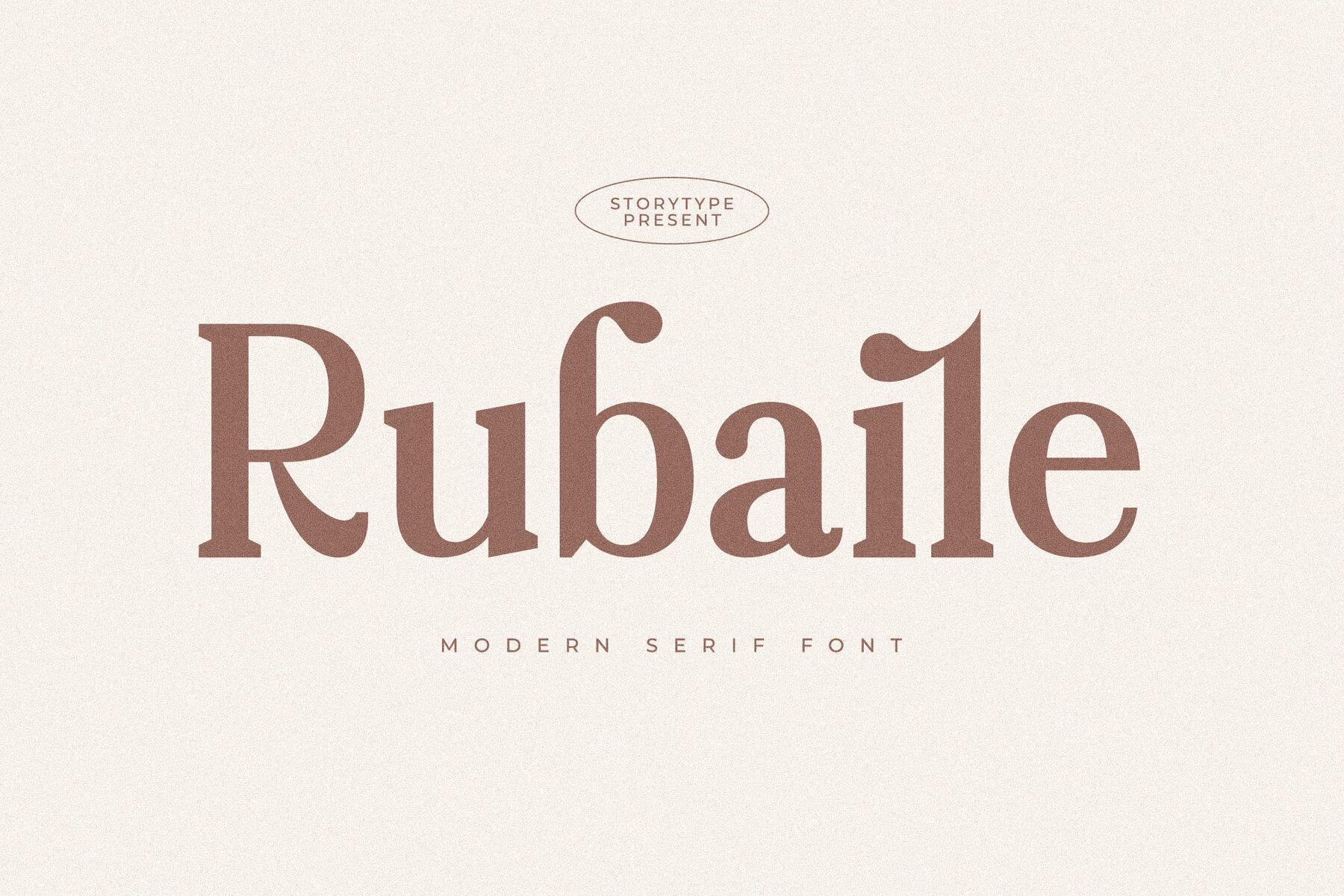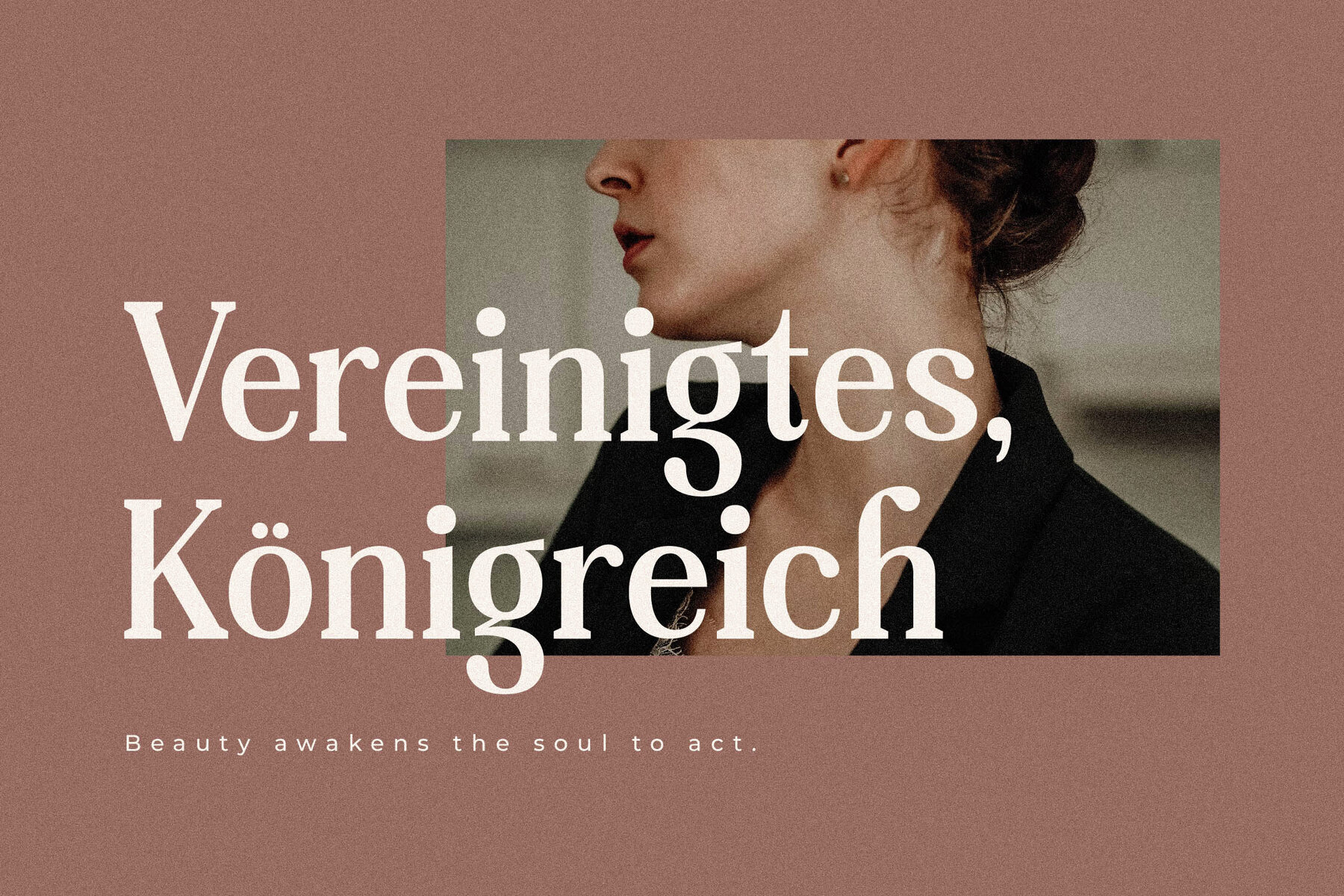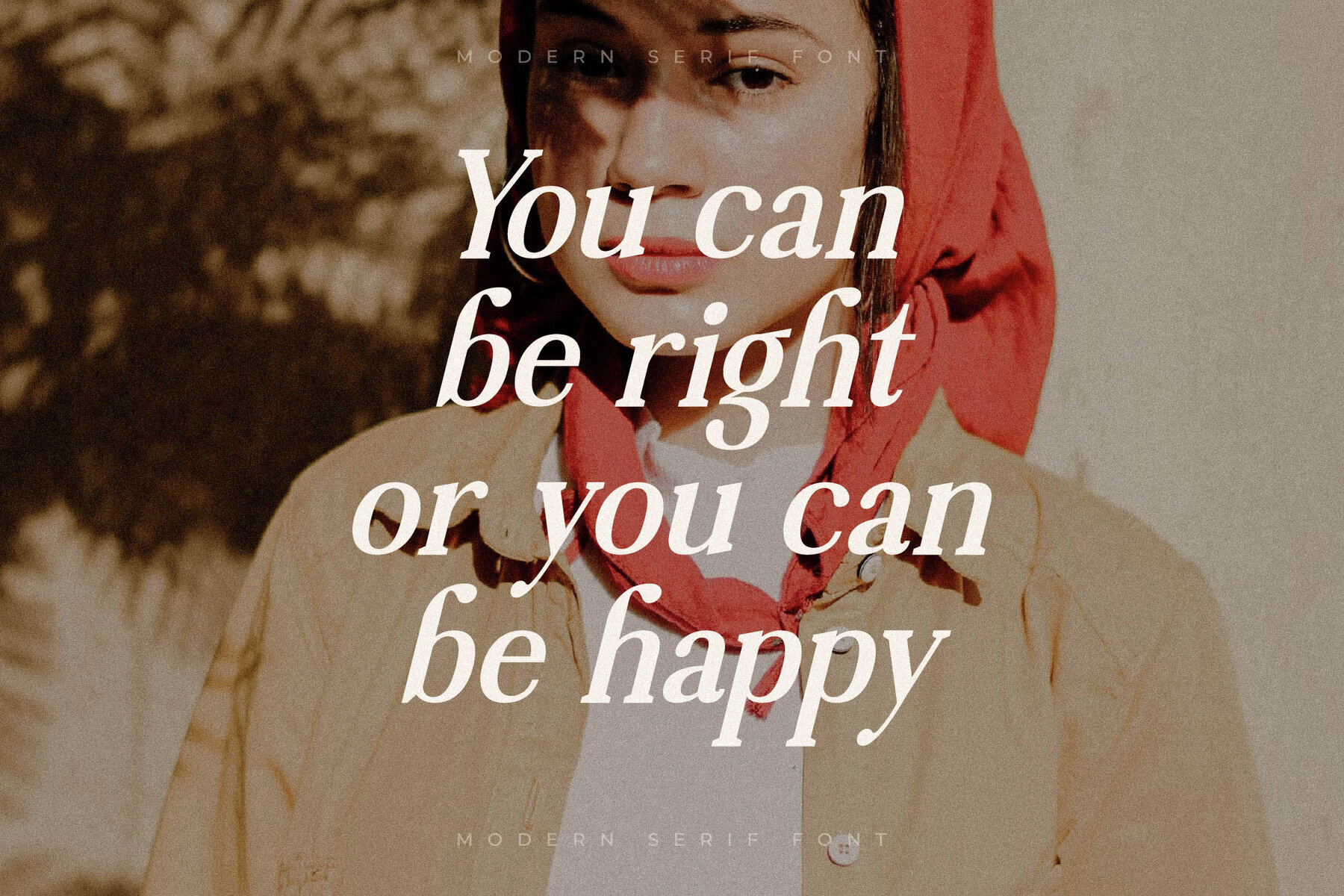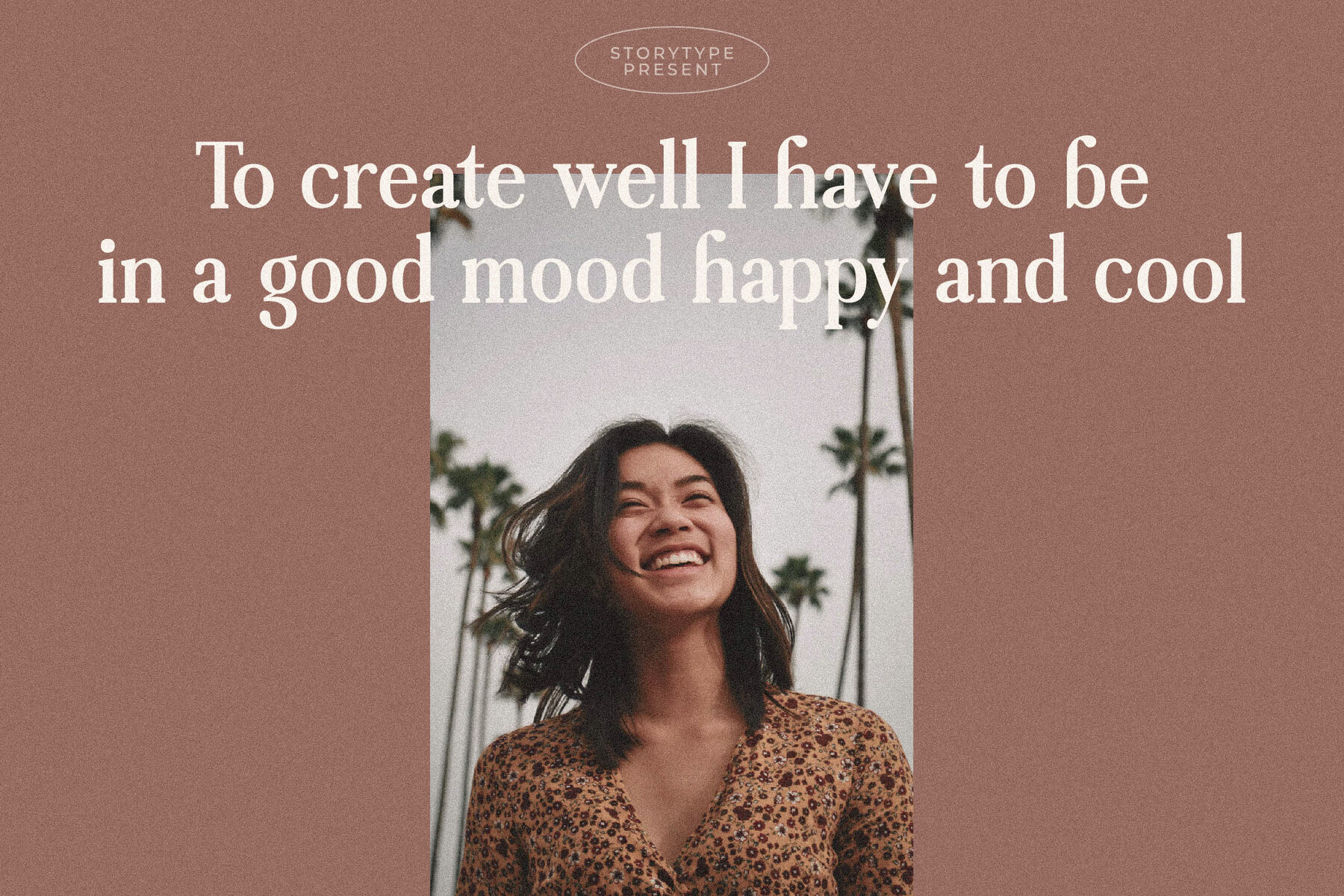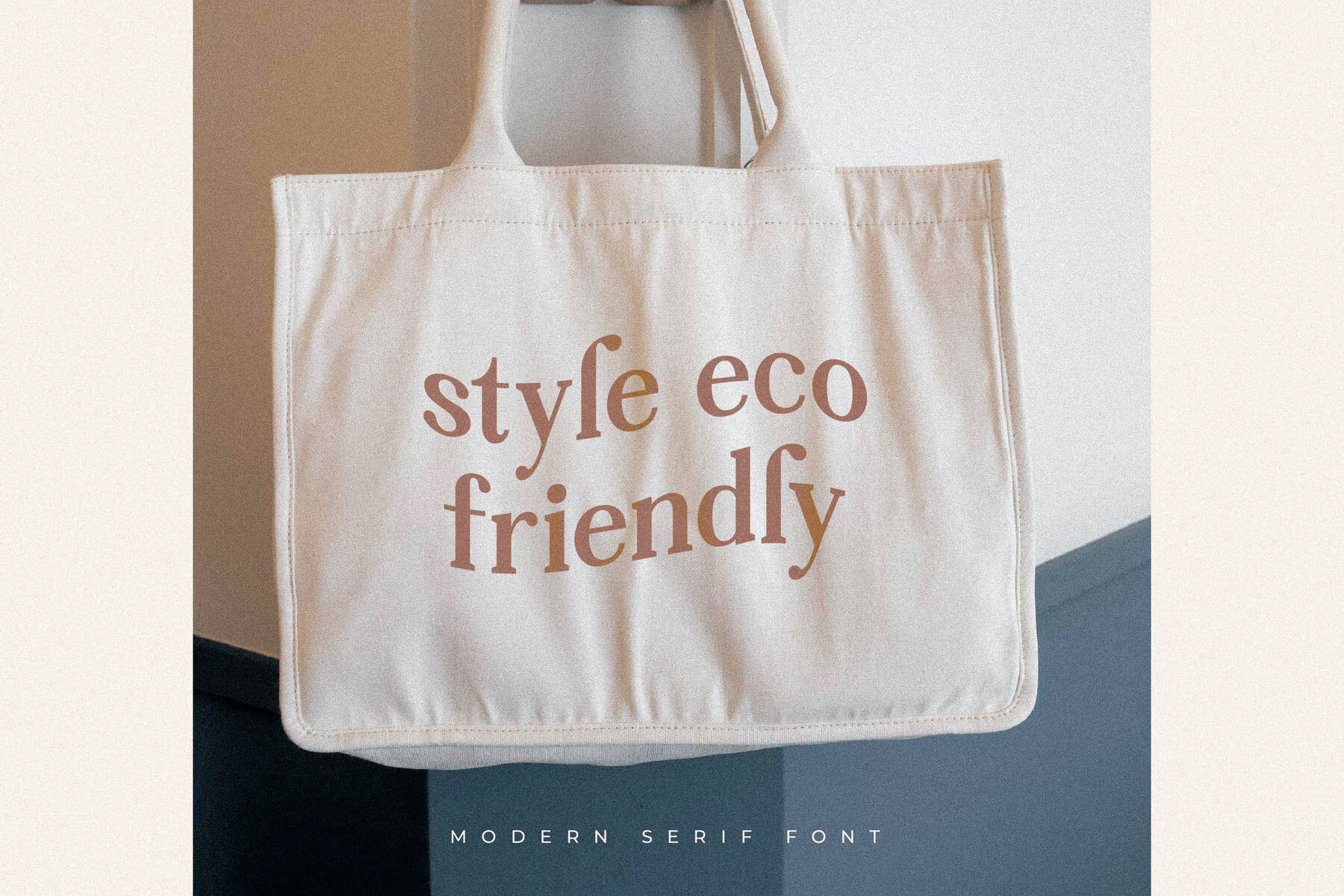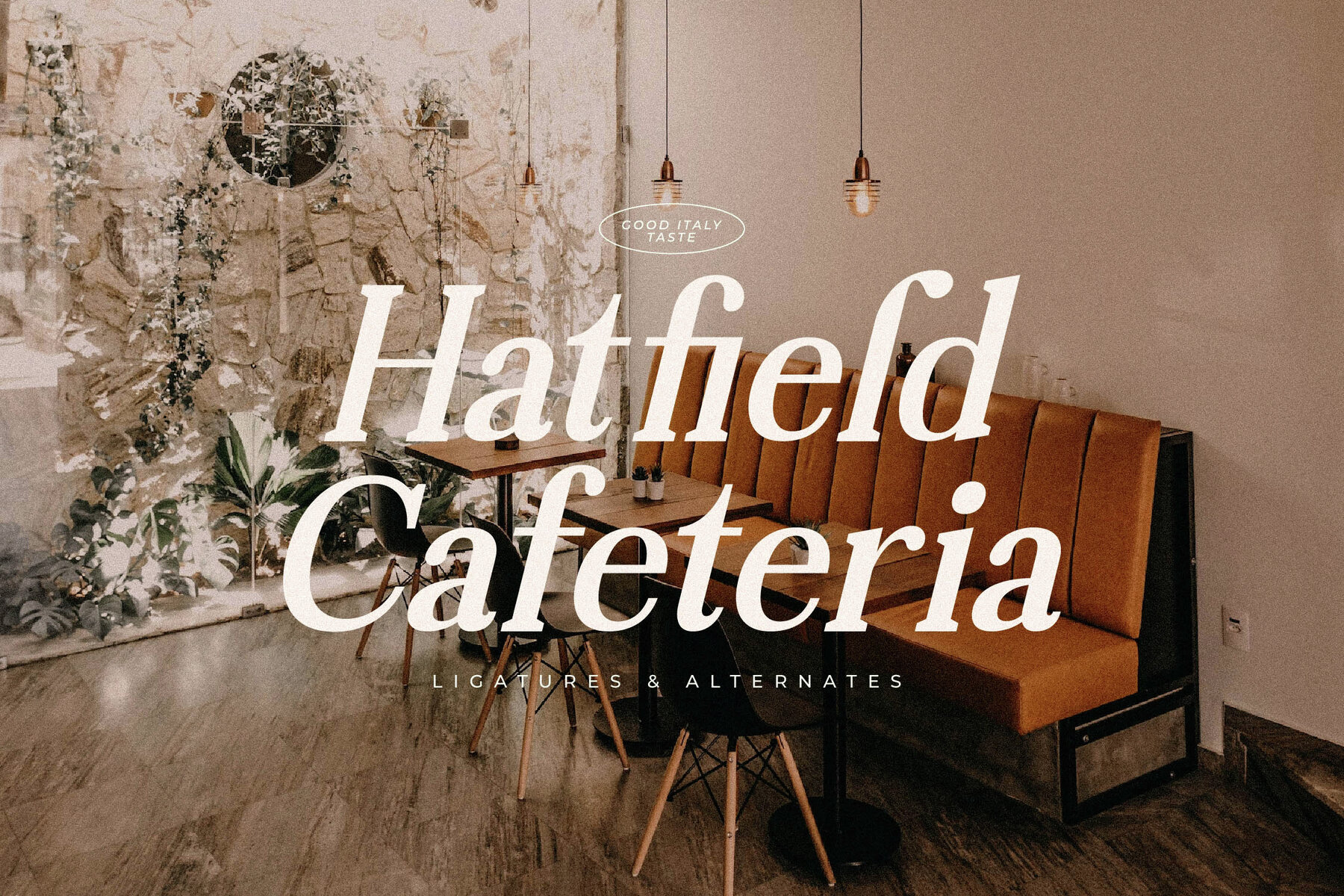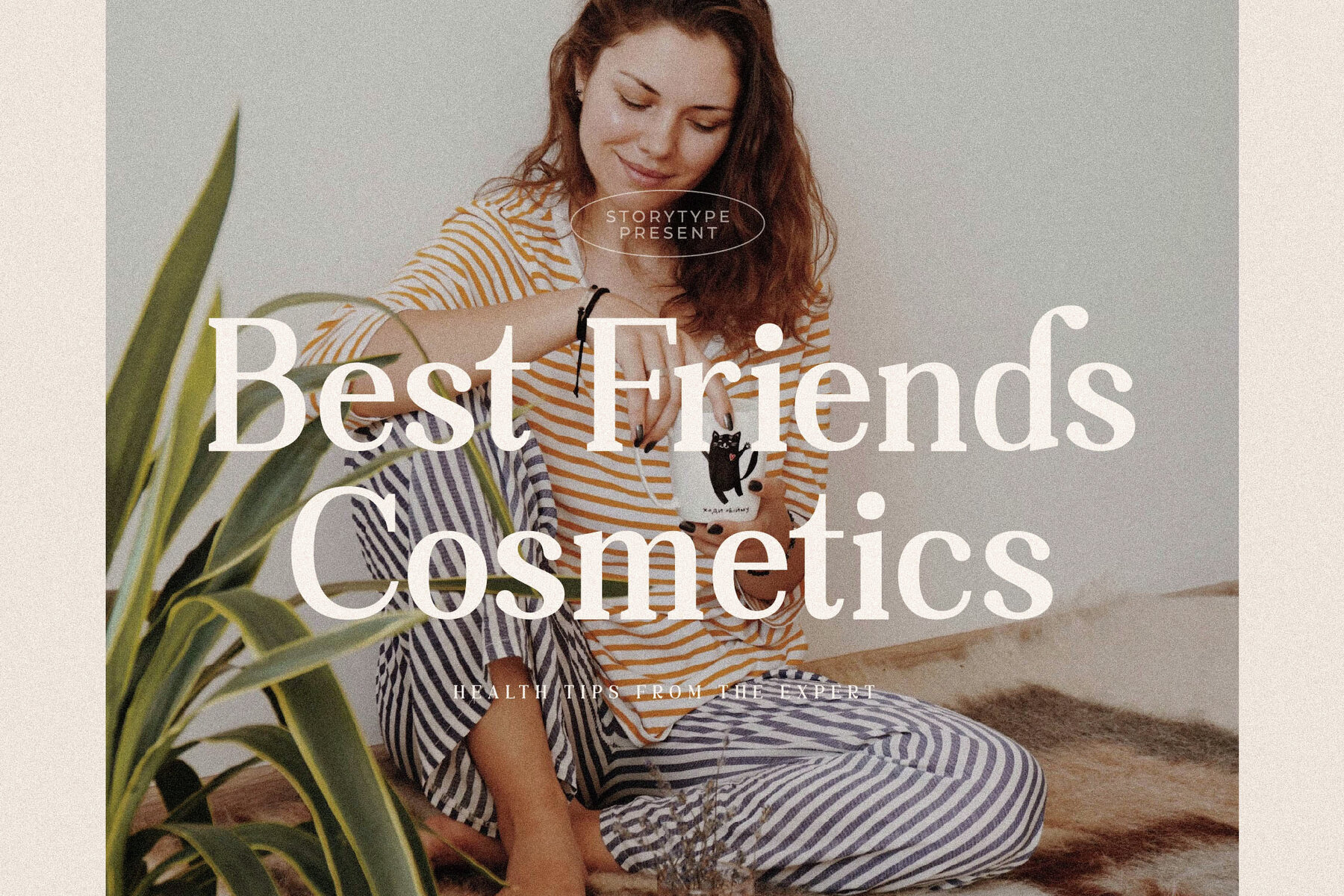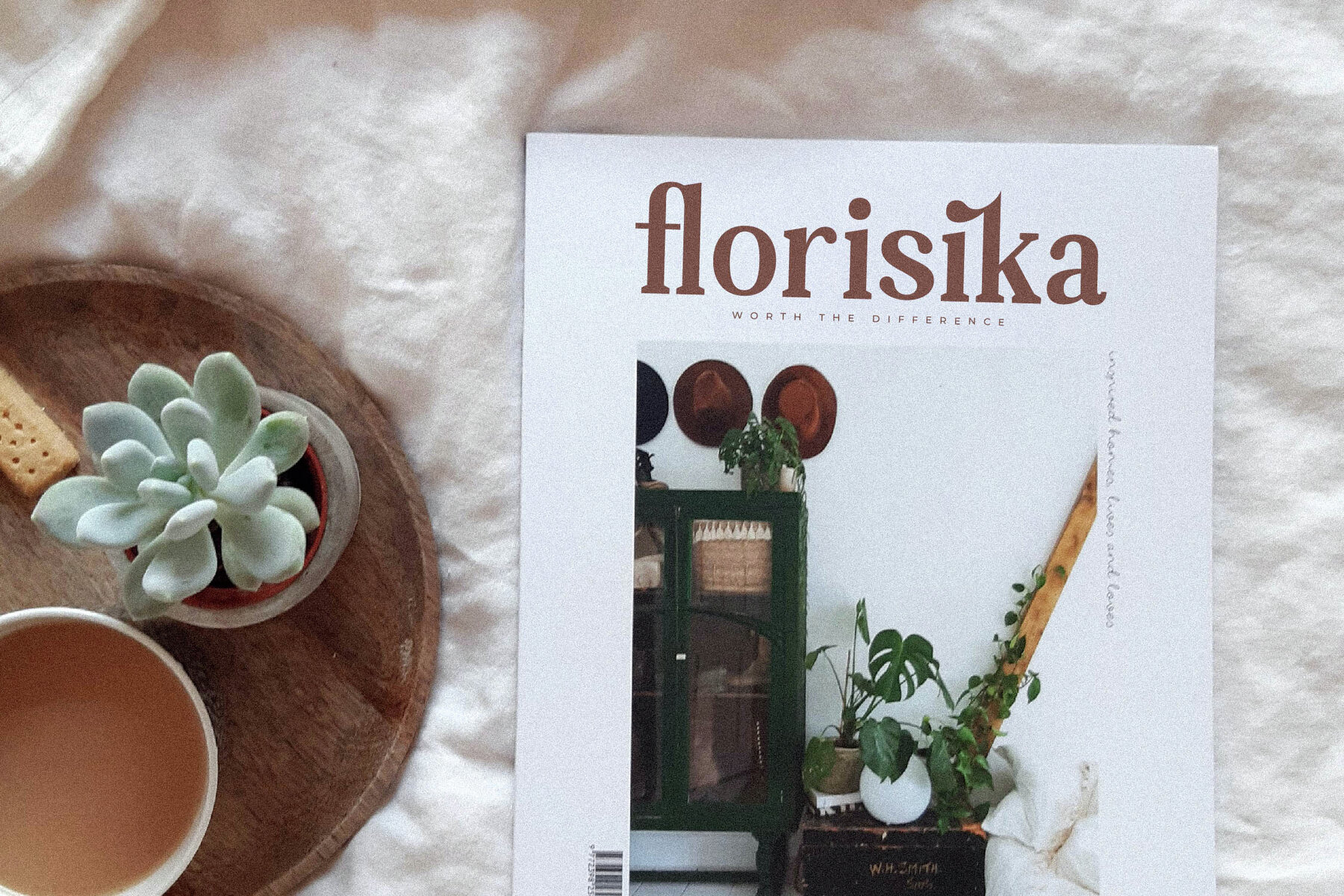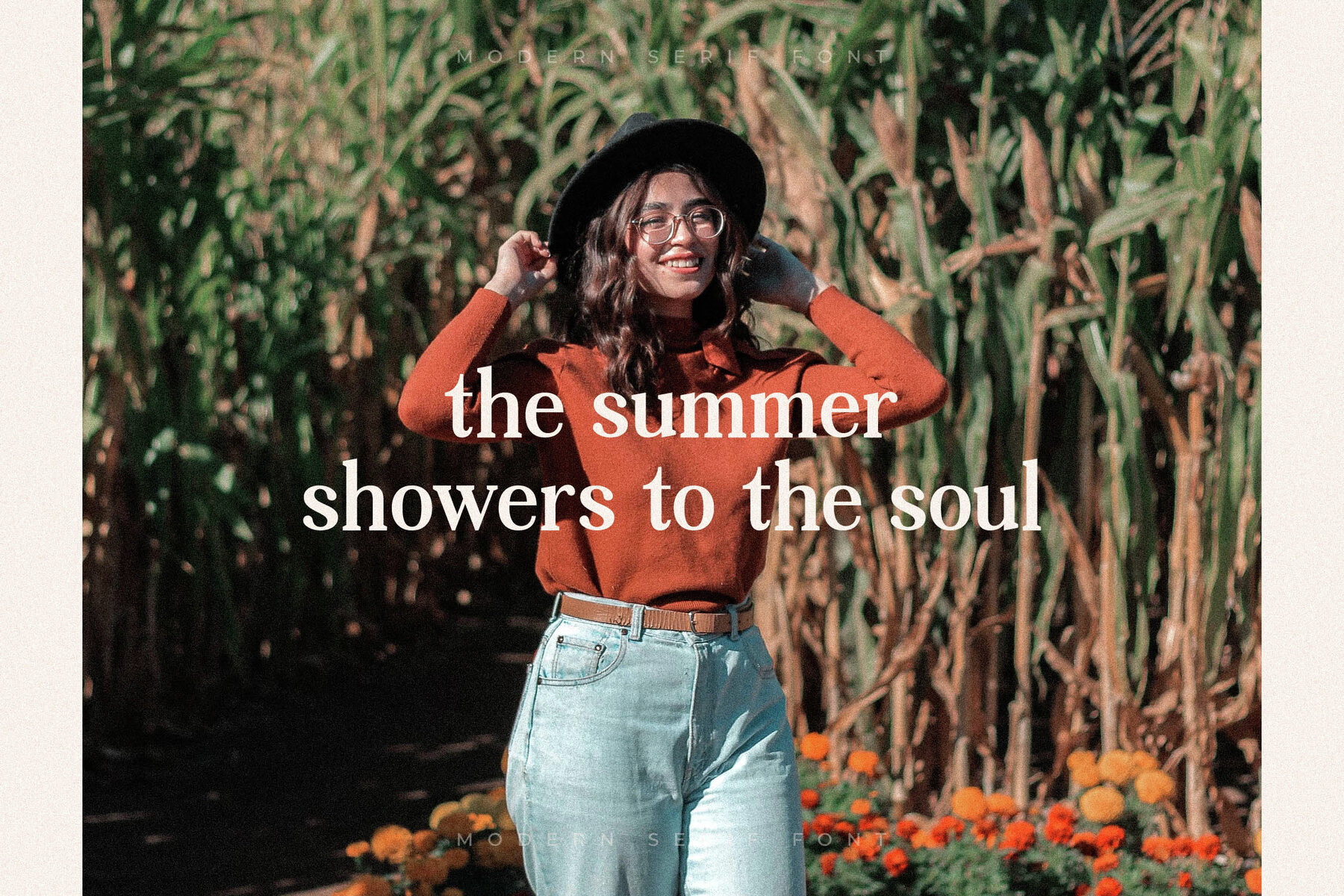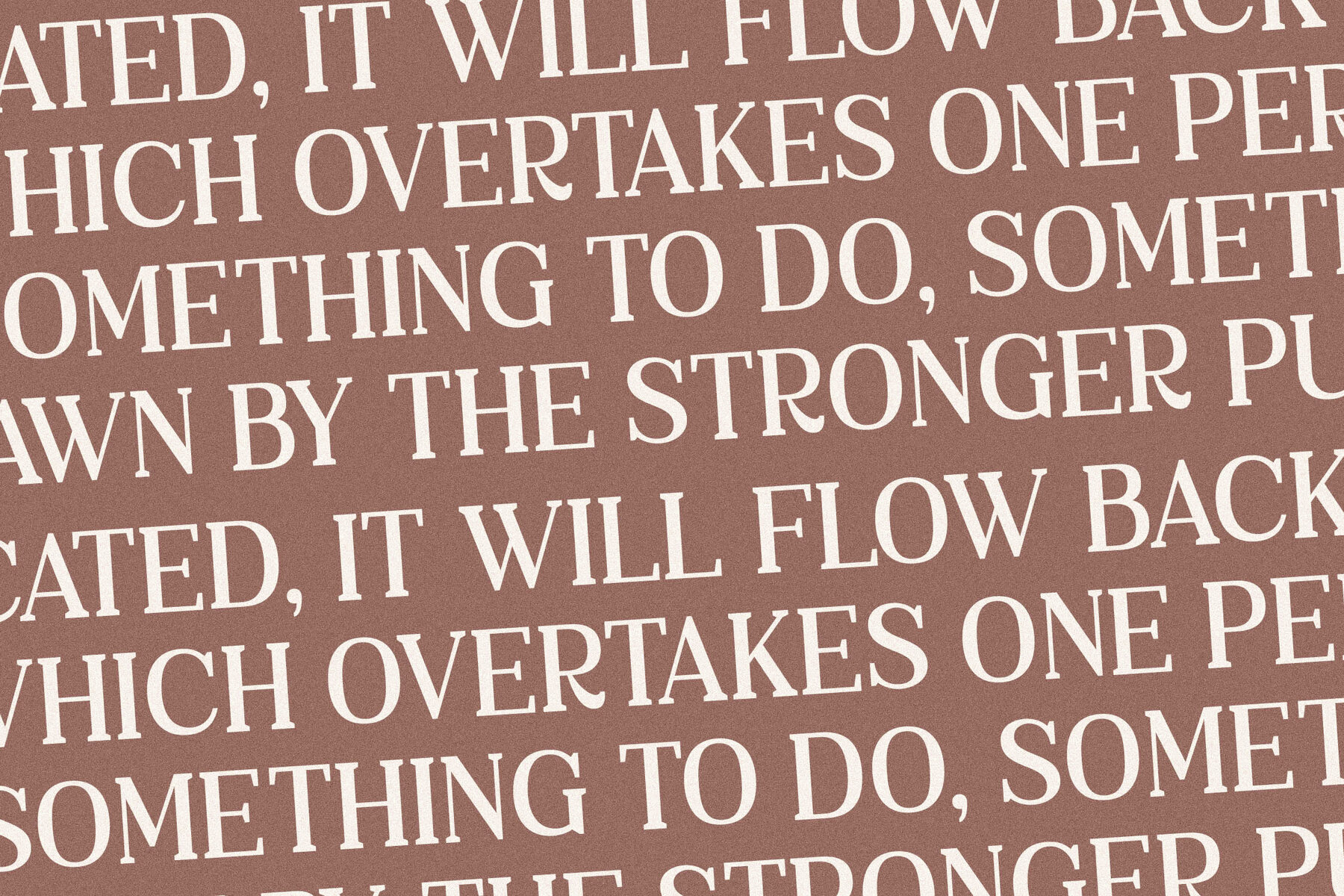
Rubaile Font
Introducing Rubaile, a serif typeface expertly crafted to merge modern elegance with classic sophistication. This unique font offers a distinctive style suitable for a myriad of high-end applications. It's an excellent choice for logos, book titles, movie titles, fashion brands, magazines, clothing lines, and more.Rubaile Typeface by Storytype Studio